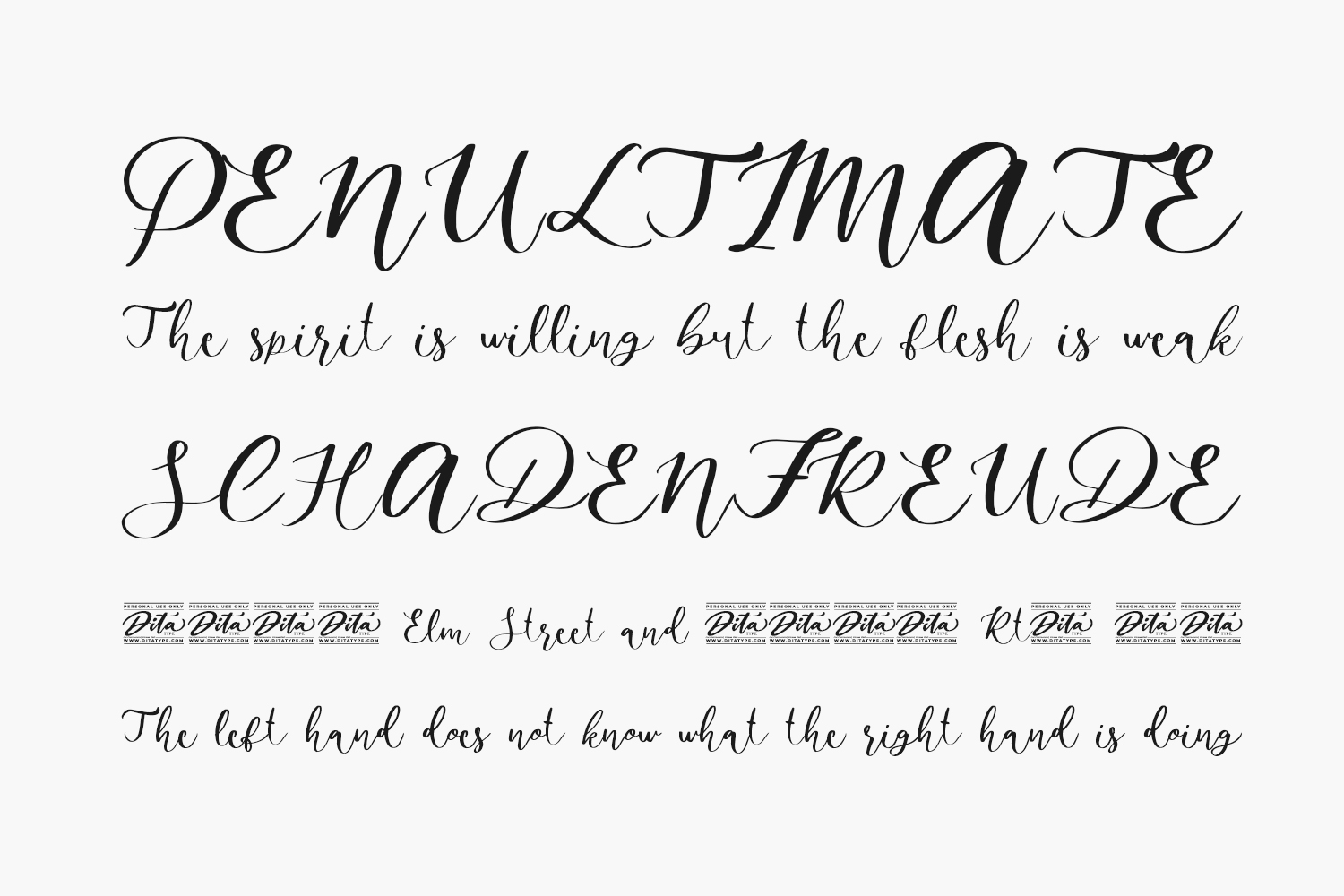
Mondier
Mondier Free Font Family is a sweet and cursive handwritten font. This gentle font will look gorgeous on a variety of design ideas. It will add a joyful and romantic touch to each of your projects. Mondier Free Font Family was designed by Craft Supply Co is a demo and free for personal use only. Please purchase the full version for commercial use.